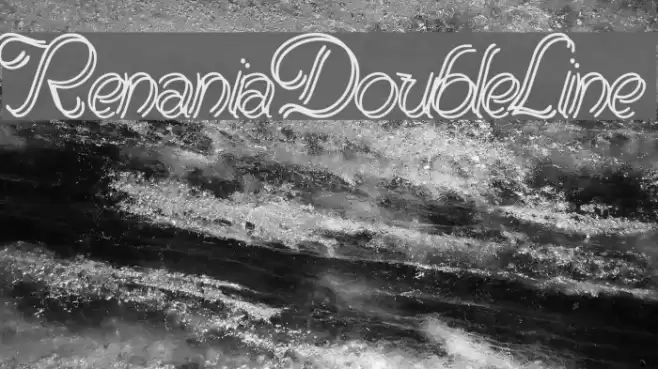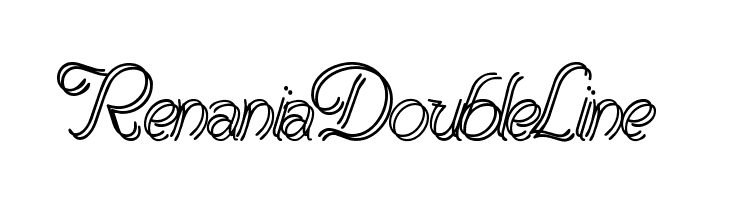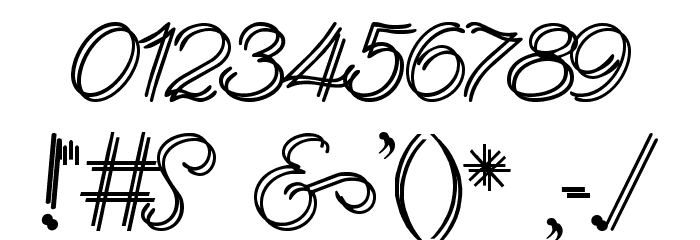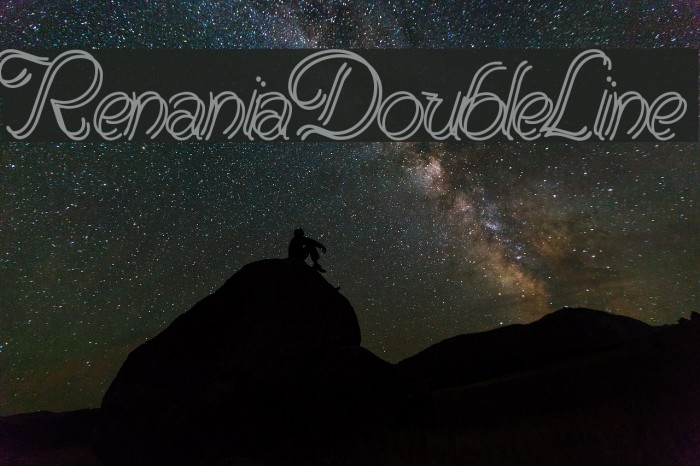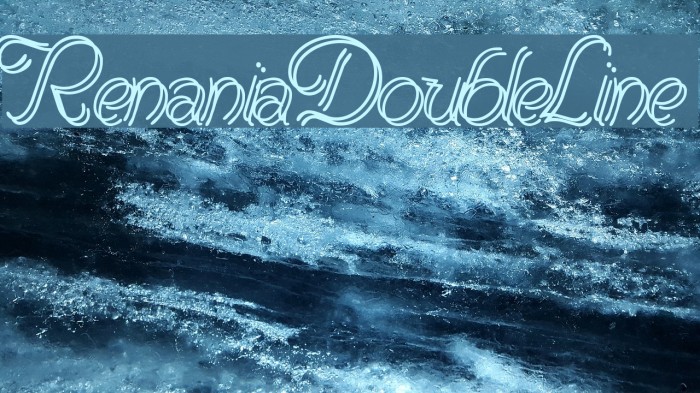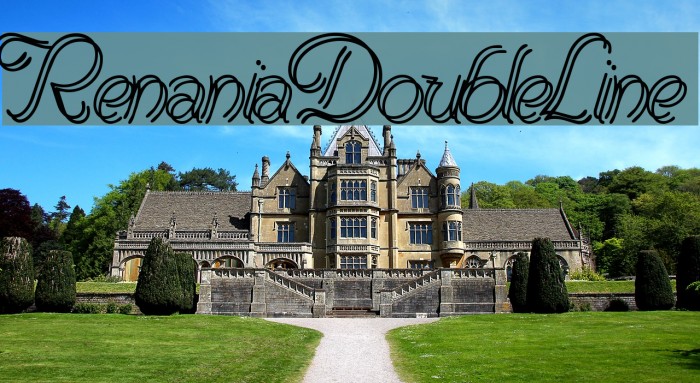
RenaniaDoubleLine Font
RenaniaDoubleLine Description
This font features an elegant and flowing script style with a double-line effect that adds depth and sophistication. Each character is crafted with smooth, curving lines that give it a sense of movement and grace. The uppercase letters are bold and prominent, while the lowercase letters maintain a consistent style, offering a harmonious blend. Numbers and special characters are designed to match the overall aesthetic, ensuring a cohesive look. The font's unique double-line design makes it stand out, ideal for creative and decorative purposes.
An elegant script font with a distinctive double-line effect from Uncategorized fonts.
- Proposed Projects: Ideal for wedding invitations, greeting cards, logo design, and decorative headings.
- Use Case: Logos, Headlines, Invitations